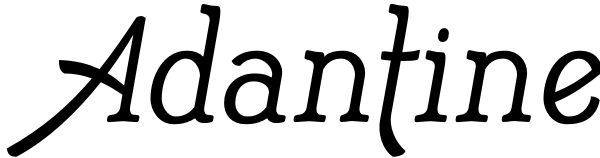
Adantine
Adantine offers the opportunity to bring Victorian Elegance and Character to modern design work. It is inspired by the hand-lettered captions often seen on old sepia-toned postcards, but also has some of the spirit of 19th century advertising cuts...
Adantine